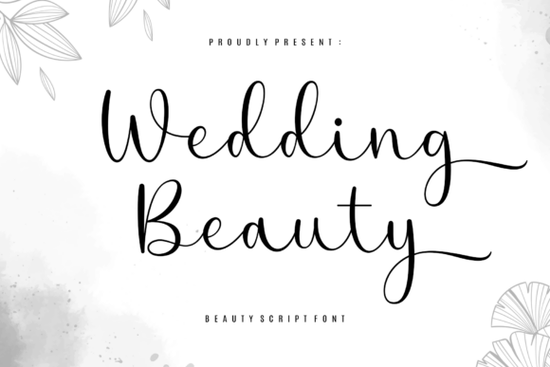
If you've been searching for a typeface that brings quiet sophistication to wedding invitations, beauty branding, or elegant print-on-demand designs, the Wedding Beauty Font deserves a close look. This elegant script font combines long, graceful flourishes with a delicate calligraphic rhythm that works beautifully across formal stationery, premium packaging, and high-fashion editorial layouts.
What Makes This Script Font Different from Other Wedding Fonts?
Plenty of script fonts claim to look "elegant," but many end up feeling cluttered or hard to read at smaller sizes. Wedding Beauty takes a different approach. It leans into white space and minimalism, giving each letter room to breathe. The result is a typeface that feels luxurious without being overdone.
The flowing letterforms have a natural calligraphic quality the kind you'd expect from hand-lettered stationery at a high-end boutique. Long swashes extend gracefully from certain characters, adding movement and romance to headlines and titles. If you pair it with a clean serif or sans-serif for body text, the combination looks polished and intentional.
What Projects Does Wedding Beauty Work Best For?
This font was built with specific design contexts in mind, and it shines in each one:
- Wedding stationery Save-the-dates, invitations, menu cards, ceremony programs, and thank-you cards all benefit from its romantic, formal tone.
- Beauty and skincare branding Think product labels, box packaging, and website headers for boutique cosmetic lines.
- Fashion editorials and magazine layouts The long flourishes look striking as mastheads and pull quotes on clean, airy spreads.
- Print-on-demand products Tumblers, tote bags, mugs, and wall art with wedding or romantic themes can use this font for a premium look.
- Website hero sections A single headline in Wedding Beauty on a minimalist background makes a strong first impression.
Do I Need Advanced Software to Use All the Swashes?
This is one of the most practical advantages of Wedding Beauty. It's PUA encoded, which means every alternate character, flourish, and stylistic variation is accessible through basic character map tools on Windows or Mac. You don't need Adobe Illustrator, Glyphs, or any professional font editor to reach the full character set.
For crafters using Cricut Design Space, Silhouette Studio, or even Canva, PUA encoding makes a real difference. You can copy and paste alternate characters directly without relying on OpenType features that some programs don't support.
This is especially helpful if you sell DIY templates or cut files. Customers who purchase your designs can use the font extras without technical headaches.
How Does It Pair with Other Fonts for Complete Design Projects?
Most real-world projects need more than one font. Wedding Beauty works as a headline or accent font, but you'll want a simpler companion for longer paragraphs, pricing details, or smaller text. Here are a few pairing ideas:
- A light serif font for body text on wedding invitations creates a classic, timeless look.
- A modern sans-serif gives beauty branding a clean, contemporary contrast.
- A second script font with a different character can add variety to a design bundle something like the Sweet Honey script font offers a warmer, more casual alternative.
For print-on-demand sellers who need variety without buying dozens of individual fonts, a handwritten font bundle can fill gaps quickly and keep costs reasonable. Mixing a few scripts with a reliable display or sans-serif font covers most project types you'll encounter.
Is Wedding Beauty a Good Fit for Non-Wedding Projects?
Despite its name, this font isn't limited to weddings. The elegant script style works for any project that needs a touch of refinement luxury brand presentations, spa menus, anniversary cards, event signage, and even restaurant branding. The key is pairing it with the right layout and color palette.